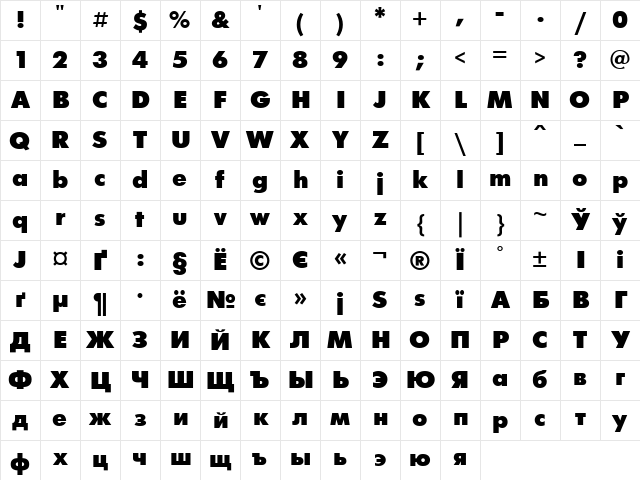
Complete UkrainianFuturisExtra Bold glyph index. Displaying only characters natively supported by UkrainianFuturisExtra Bold font.
UkrainianFuturisExtra has a distinctly futuristic character, with geometric precision and clean angles that feel at home in technology, gaming, and sci-fi contexts. Its bold stroke weight gives it real presence on the page.